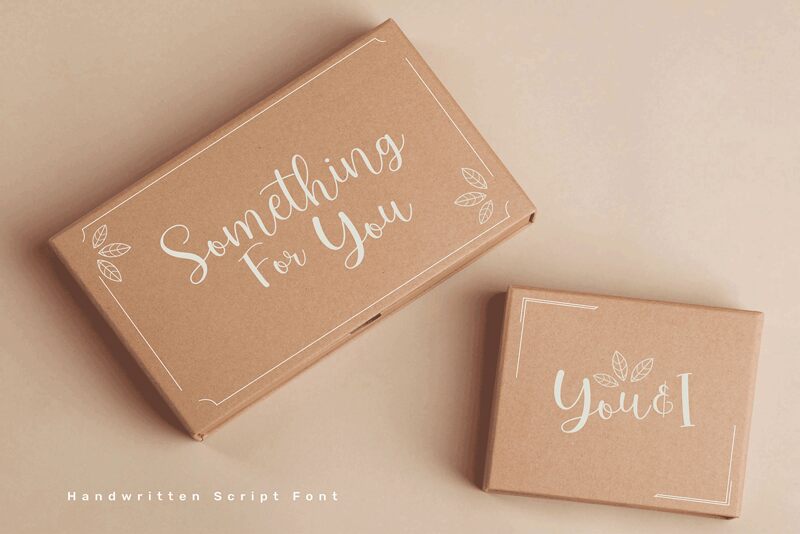
Looking for a font that combines elegance and readability? Look no further than Demo Yuilines, the latest creation from talented font designer Faisal Tanjung. With its light calligraphy style, this font is perfect for a wide range of projects – from wedding invitations to restaurant menus and everything in between. Its graceful curves and delicate lines will add a touch of sophistication to any design while ensuring that your message is clear and easy to read. So why wait? Try Demo Yuilines today and see how it can elevate your next project to the next level!
Demo Yuilines
Faisal Tanjung